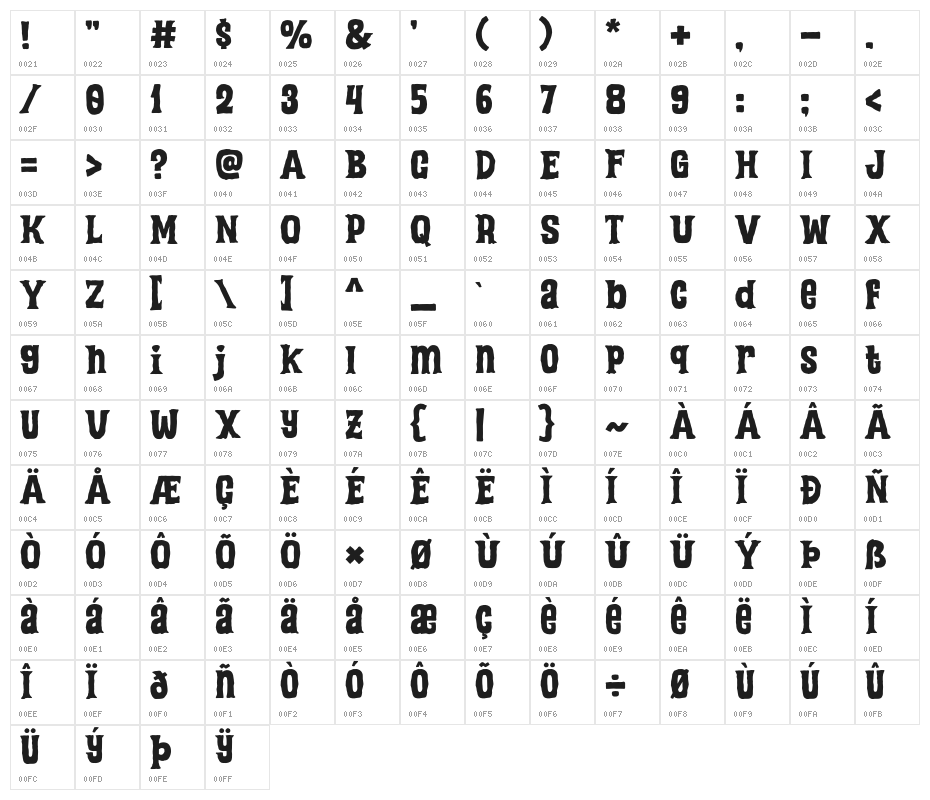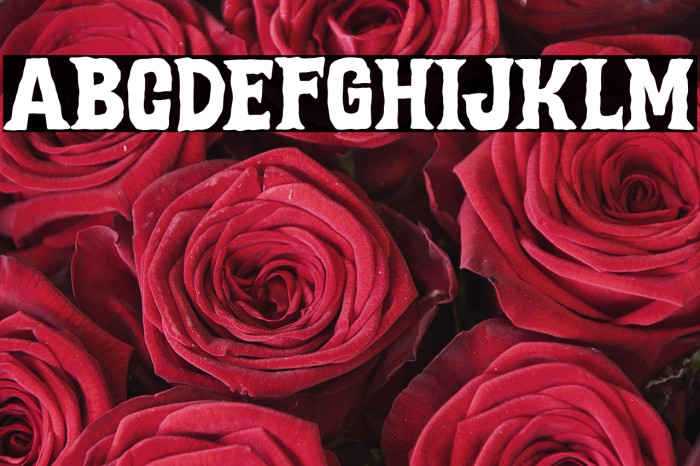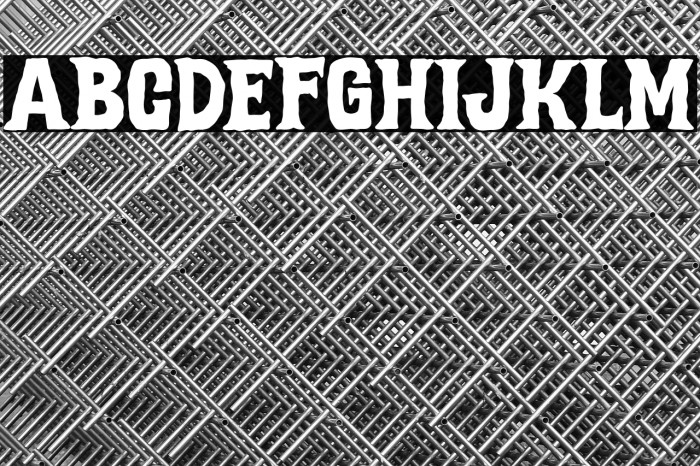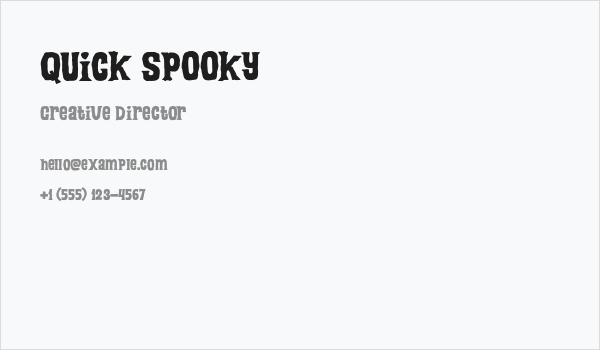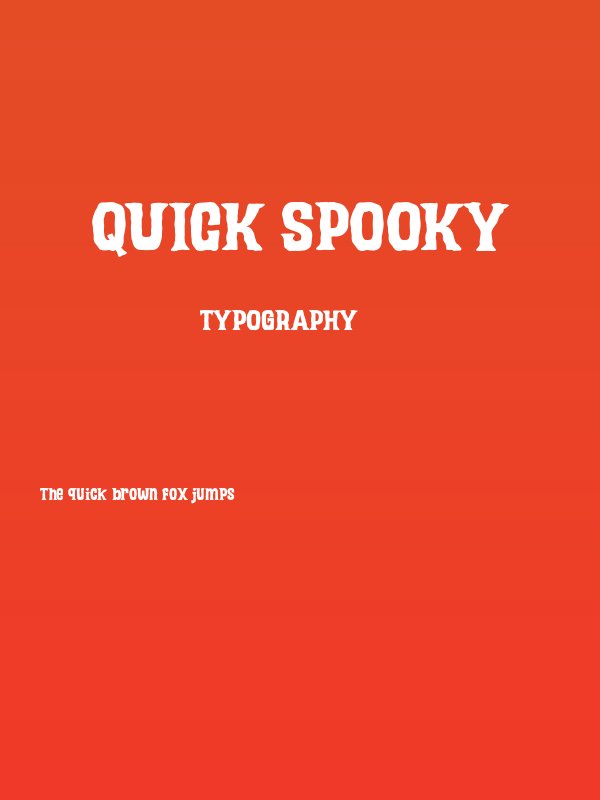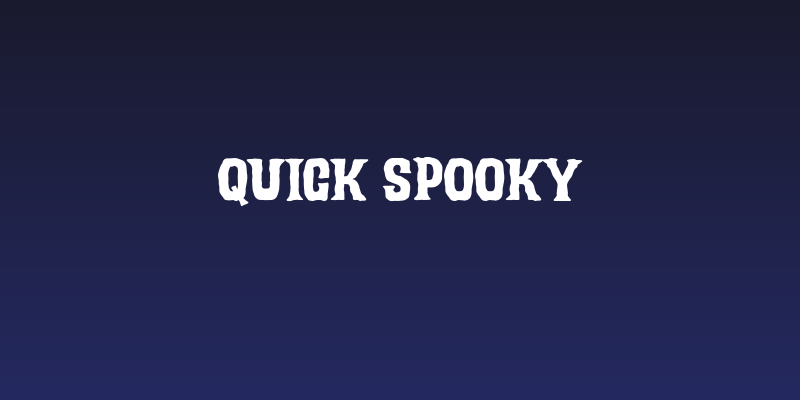
Quick Spooky Font
Quick Spooky Description
| Overall Style | Decorative, Spooky, Playful |
| Use Case | Headlines, Posters, Logos, Event Flyers |
| Proposed Projects | Halloween posters, horror movie titles, party invitations, themed event signage, children's spooky books. |